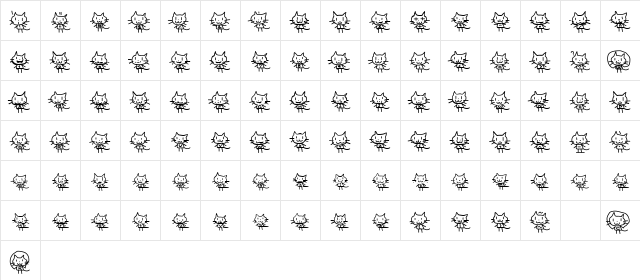
Cat type
Design Context for Cat Typeface
Cat is a composed and adaptable typeface that performs quietly and consistently across a wide range of design contexts.